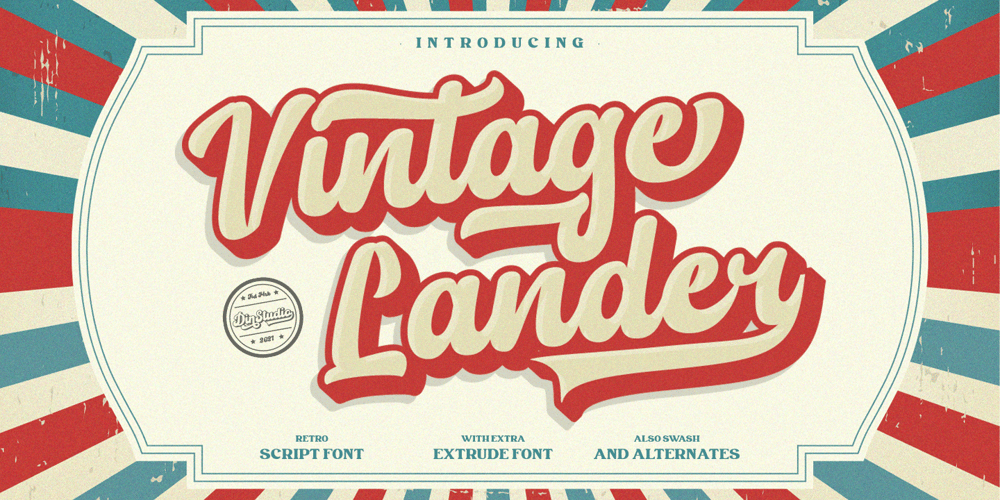
Vintage Lander
Vintage Lander font
Vintage Lander Font Family was designed by Donis Miftahudin and published by Din Studio. Vintage Lander contains 2 styles and family package options. Have you thought about how you can add that touch of magic to your branding and projects? Want to travel your audience to a world of gorgeous, versatile, but still have the retro touch? Then, here we go.Introducing Vintage Lander- A RetroScript FontThis vintage font features thick and angular letters. With its strong outlines and fat strokes, this is the font you need when you want to create that classic bubble font look. This font becomes more special with extruding version option. This font can be used for a host of different content needs and projects. Create gorgeous printed quotes, standout packaging, or beautiful t-shirts! You can even use it to create amazing headings, logos, menus, and social media graphics. Our font always includes Multilingual Support to make your branding reach a global audience. Features: Ligatures Stylistic Set Swashes Multilingual Support PUA Encoded Numerals and Punctuation Thank you for downloading premium fonts from Din Studio